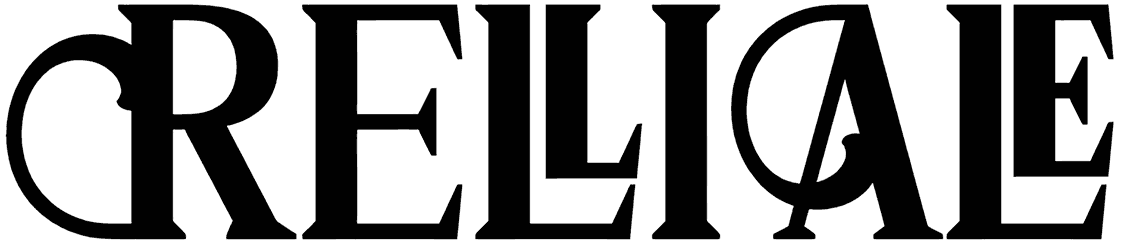
Relliale Font
If you don’t want your message to get lost in layers of extra twists and complicated designs, Relliale can be a very clear and transparent transmitter. This serif font can complete your design in a minimal and uncomplicated format, thus drawing the viewer’s attention to the message you are trying to convey.
On the other hand, you can use it in the body of your text, and by adding structures to both styles, you can add beauty to your designs.